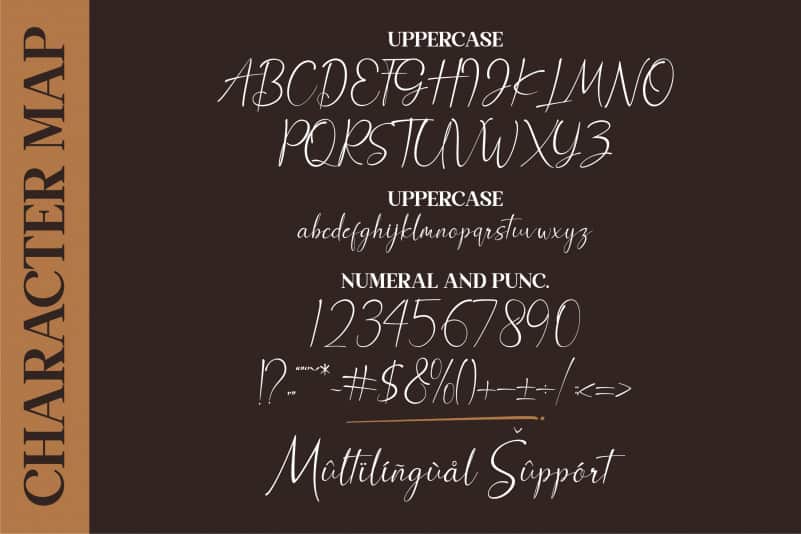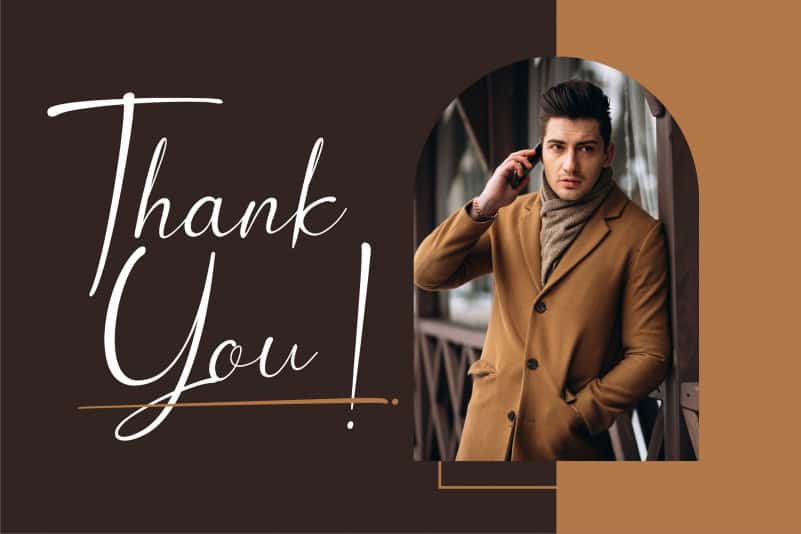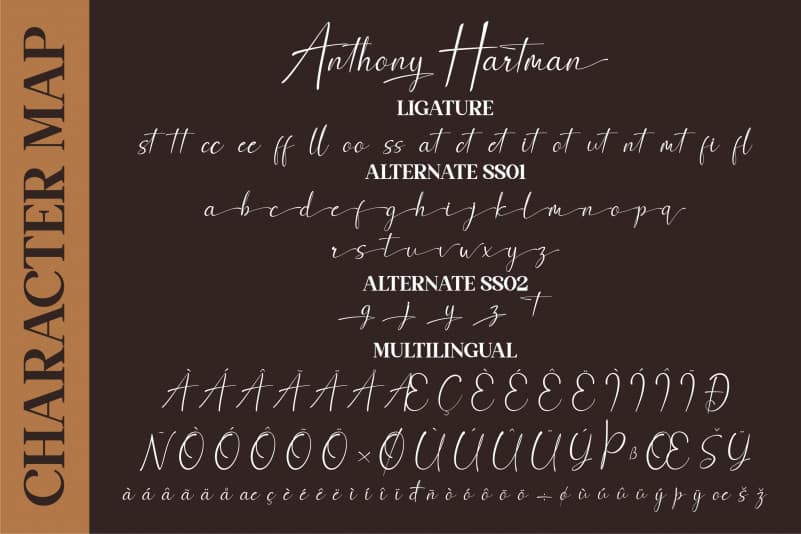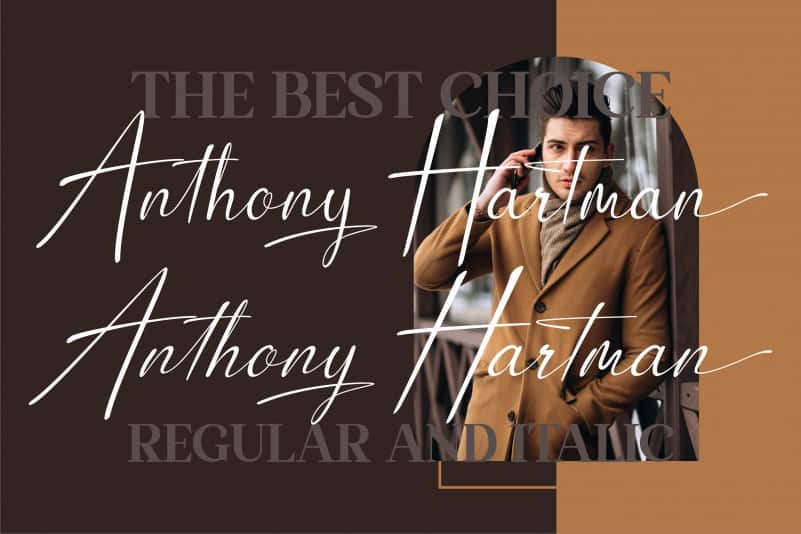
Anthony Hartman Script Font
Anthony Hartman Script Font, from Letterena, is a signature font, suitable for any projects such as: logos, branding projects, homeware designs, product packaging, mugs, quotes, posters, shopping bags, t-shirts, book covers, name card, invitation cards, greeting cards, label, photography, watermark, special events, and all your other luxury projects that need a script Signature taste.